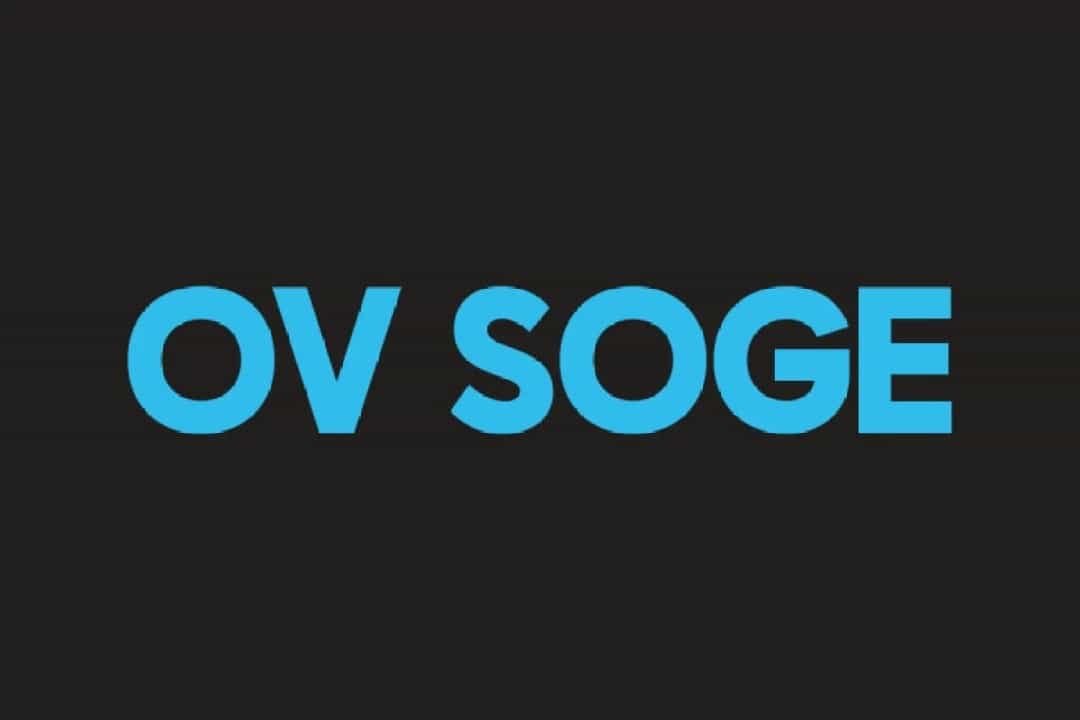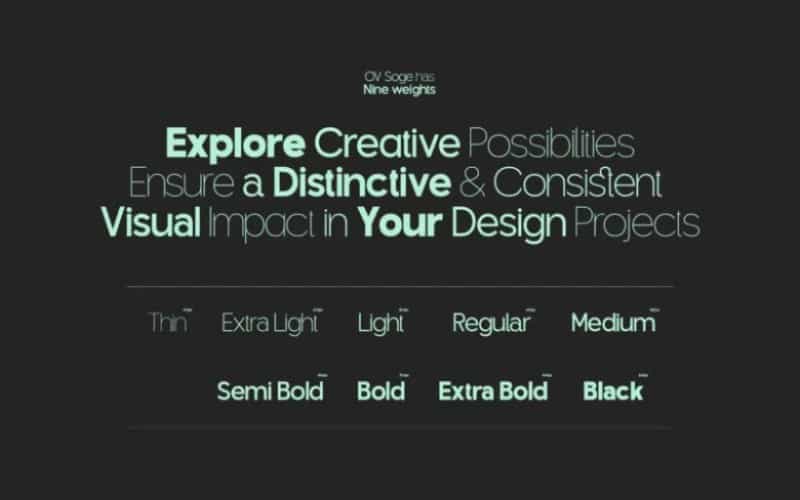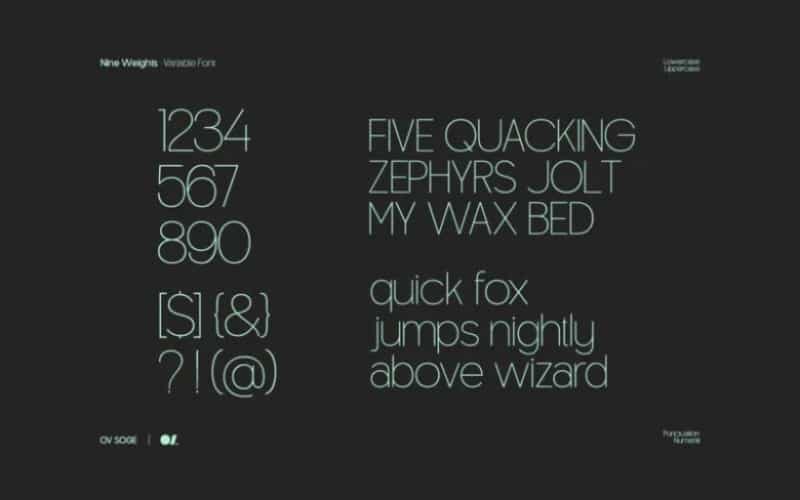
Discover OV Soge Font Family, part of the Sans Serif collection—a versatile and unique font perfect for adding a personal touch to your projects. Download it for free and enjoy crafting designs with style, from invitations to social media posts. This font is available exclusively for personal use, giving you the freedom to create without limits. Unlock your creativity with OV Soge Font Family today!
Ov Sogeis a versatile new sans serif font family that offers modern and clean designs that make an excellent addition to any professional design project. Multilingual compatible, this font can help reach audiences all around the globe.